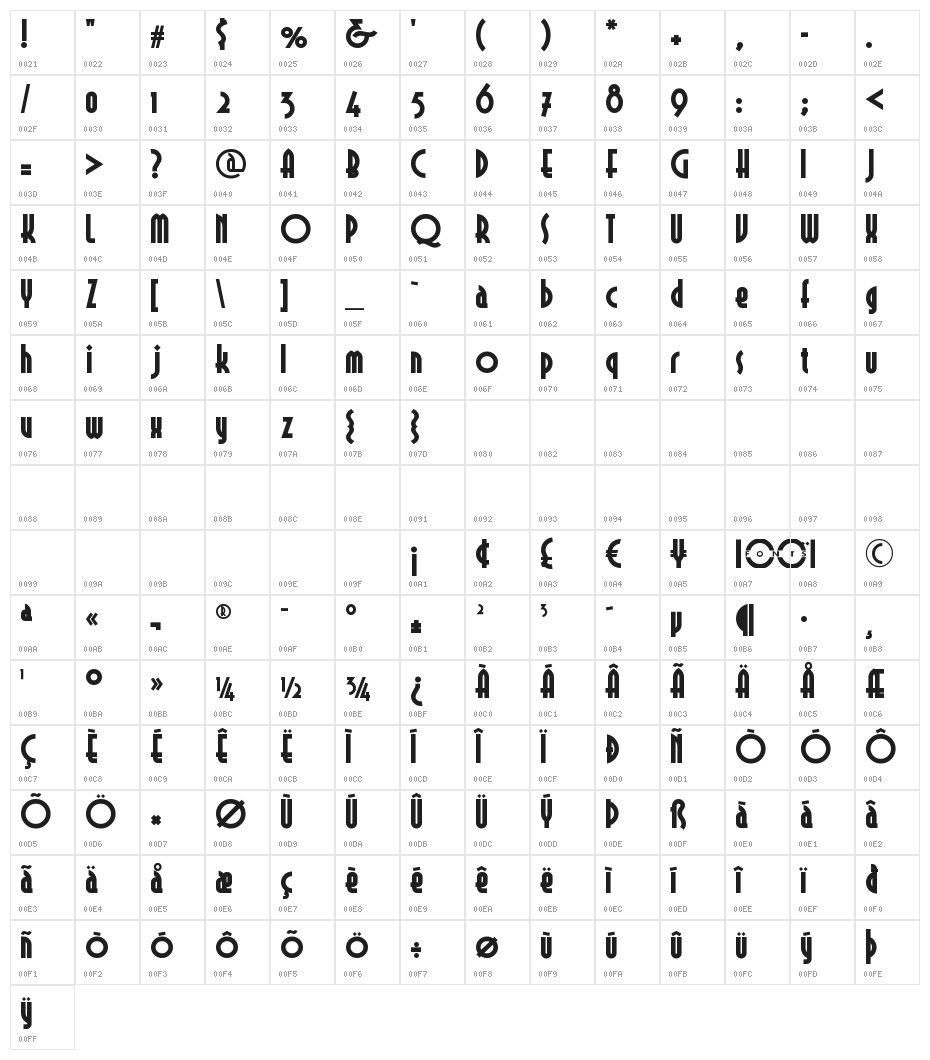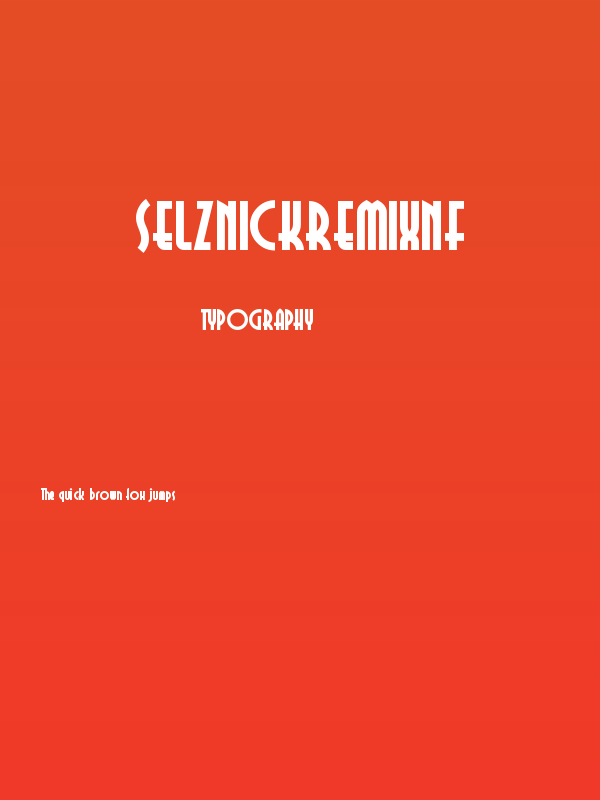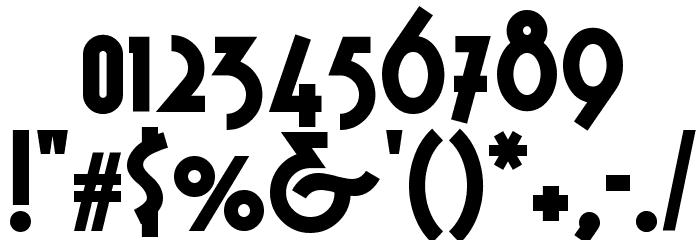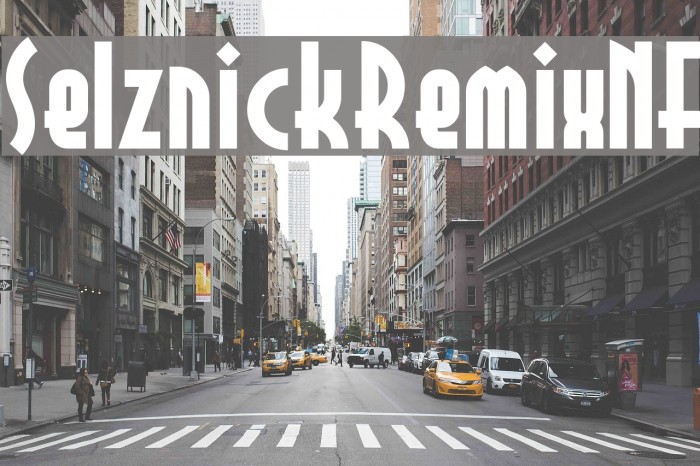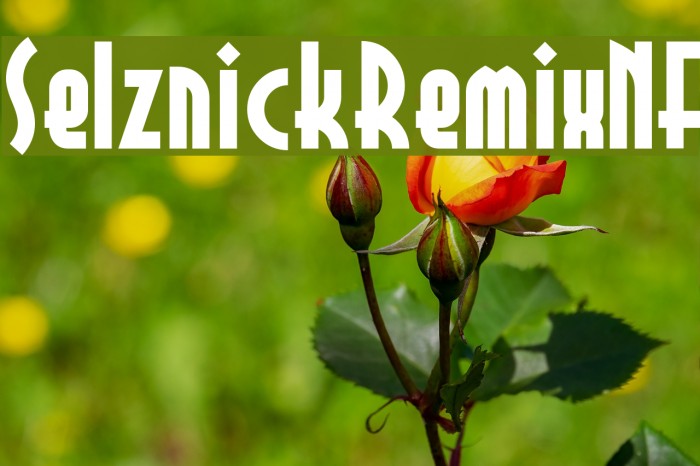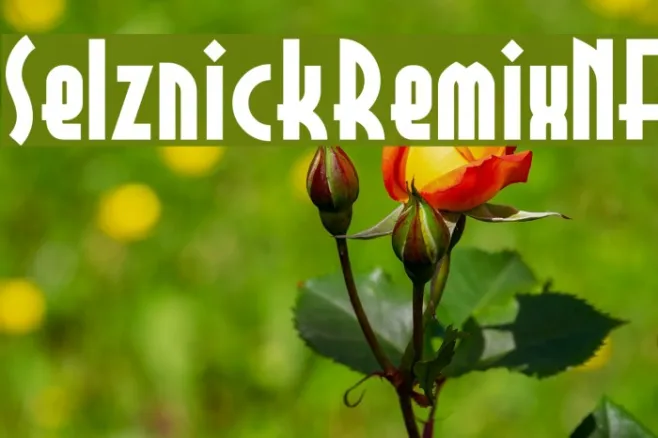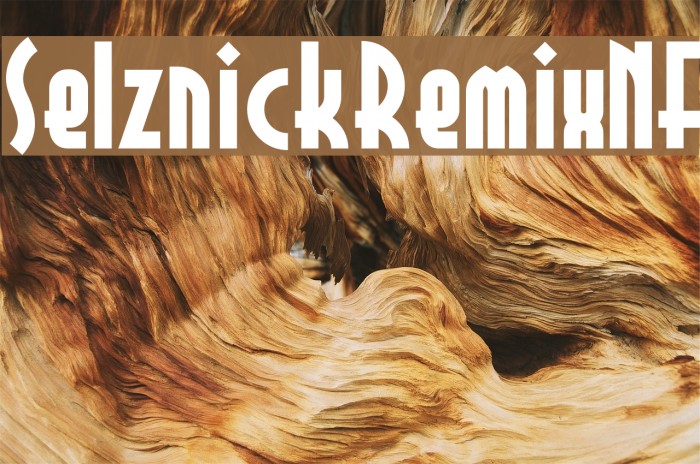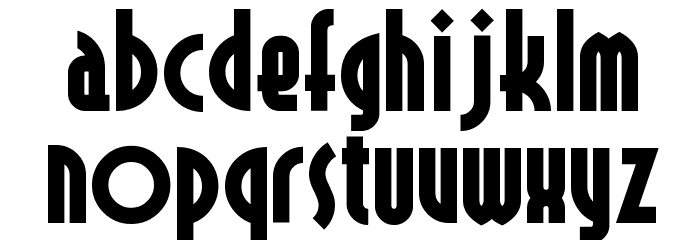
SelznickRemixNF Font
SelznickRemixNF Description
This font features a bold and geometric design, characterized by its strong, angular lines and distinct Art Deco influence. The uppercase letters are particularly striking, with a unique blend of sharp edges and smooth curves that create a sense of movement and dynamism. The lowercase letters maintain this aesthetic, offering a cohesive look across different text cases. Numbers and special characters are designed with the same attention to detail, ensuring consistency throughout. This font's bold presence makes it ideal for eye-catching designs.